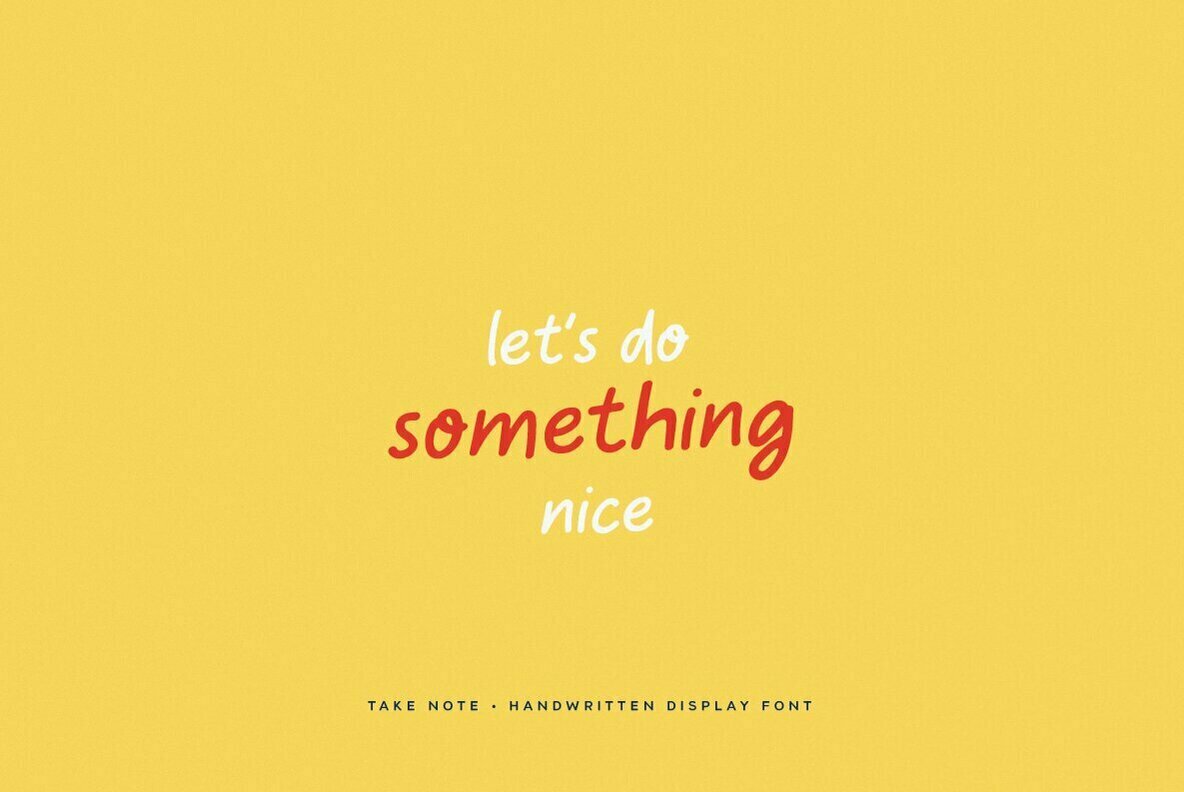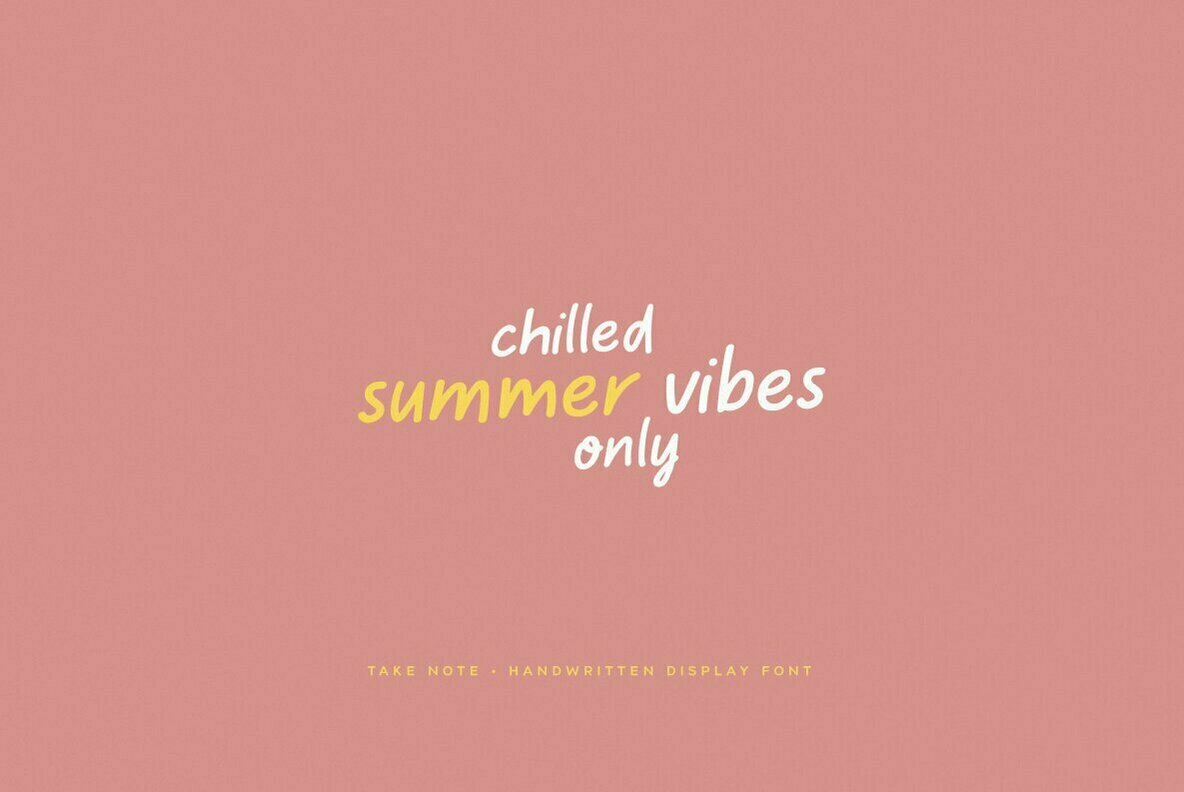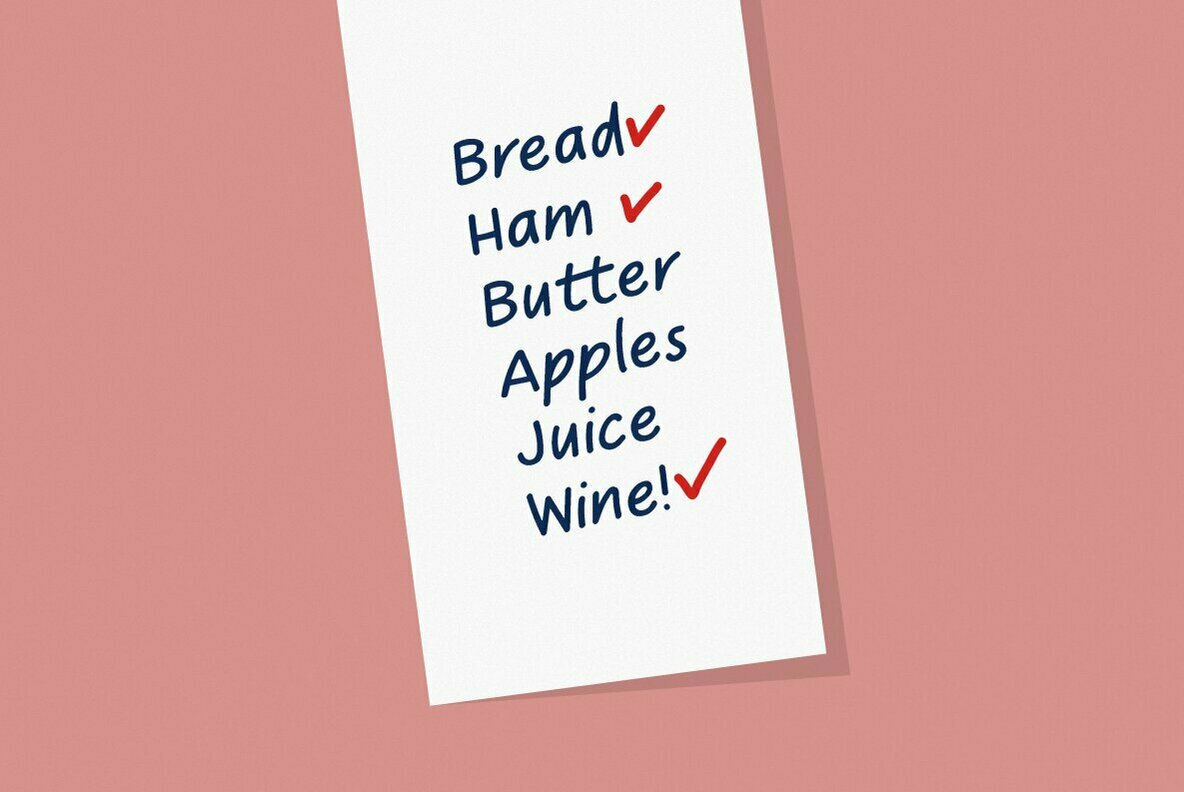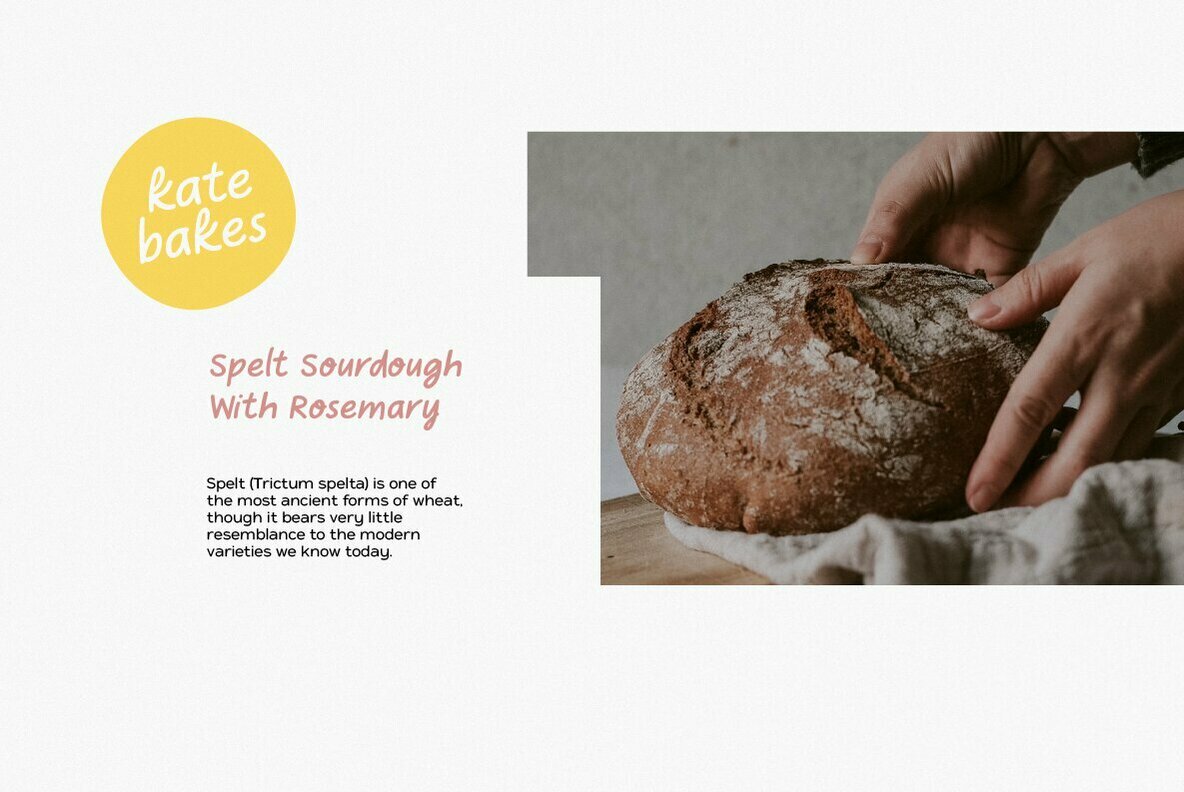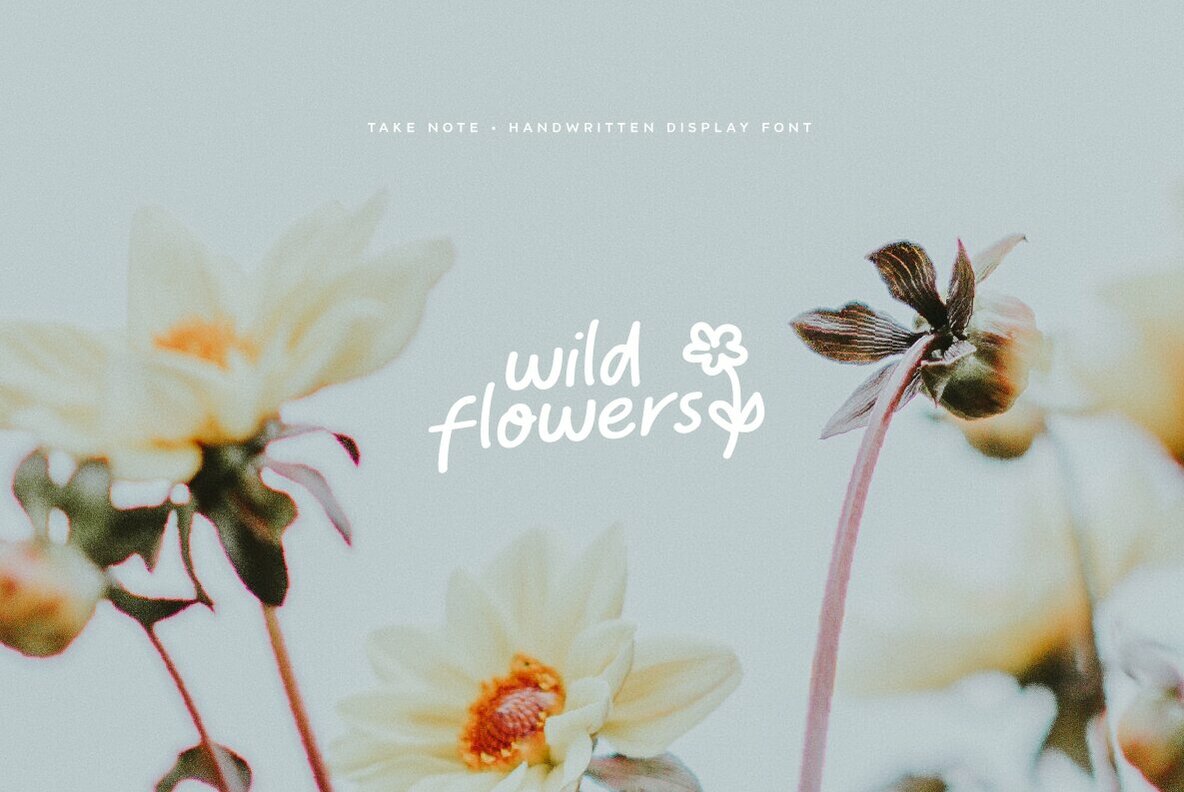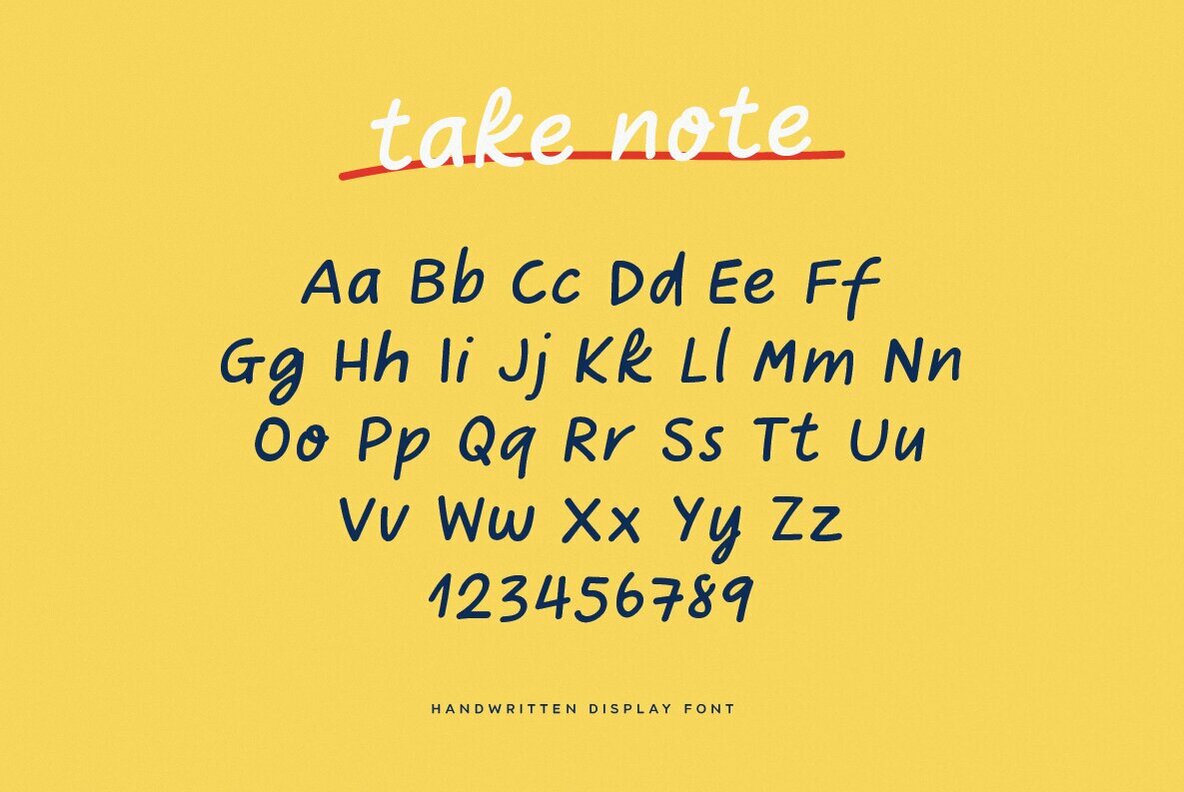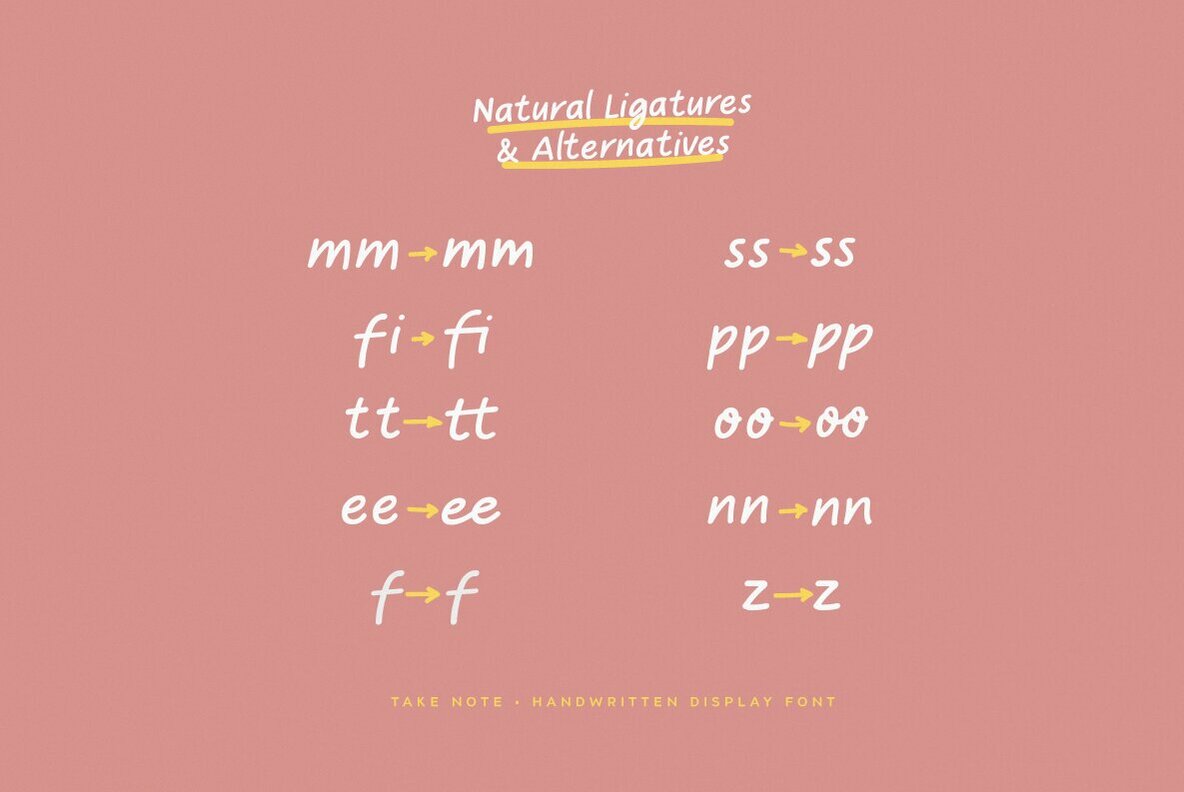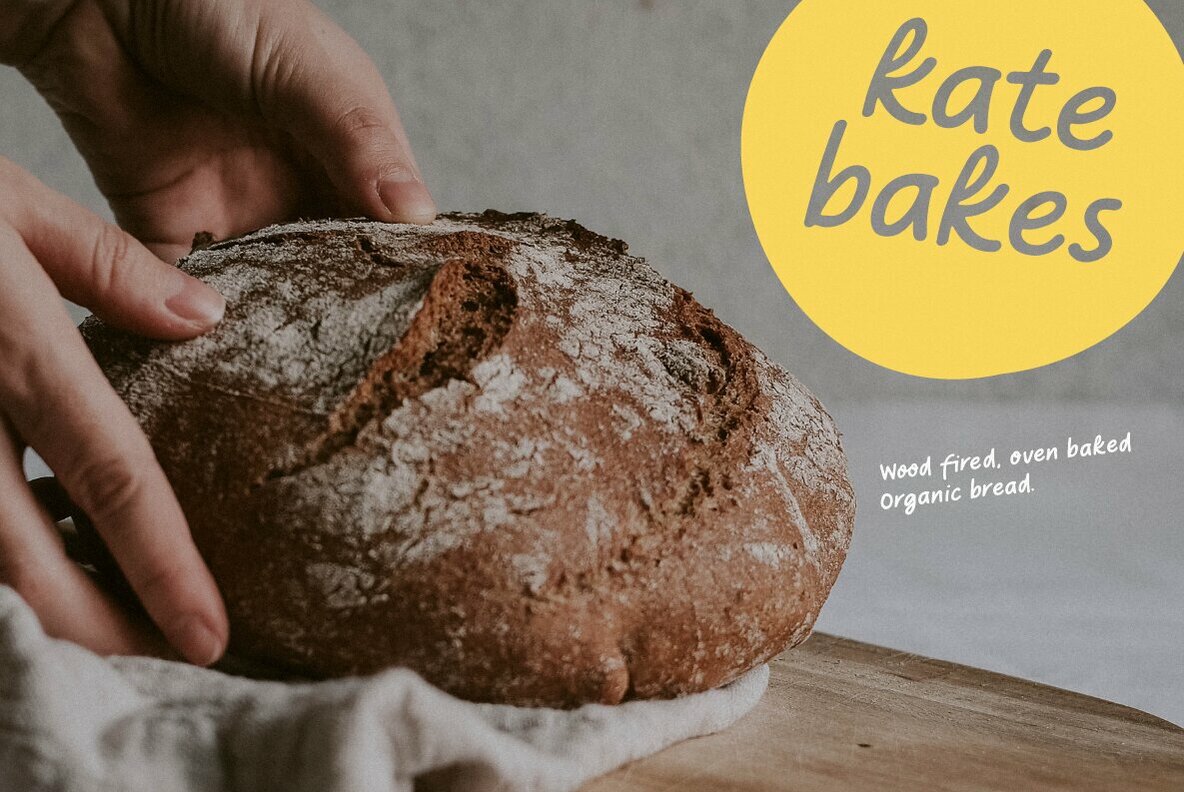
Take Note Font
Take Note
Take Note, a beautiful and playful handwritten font. Using ligatures and stylistic alternatives for a natural flow and feel.
A cute handwritten font for logotype, blog headings or even Instagram quotes.